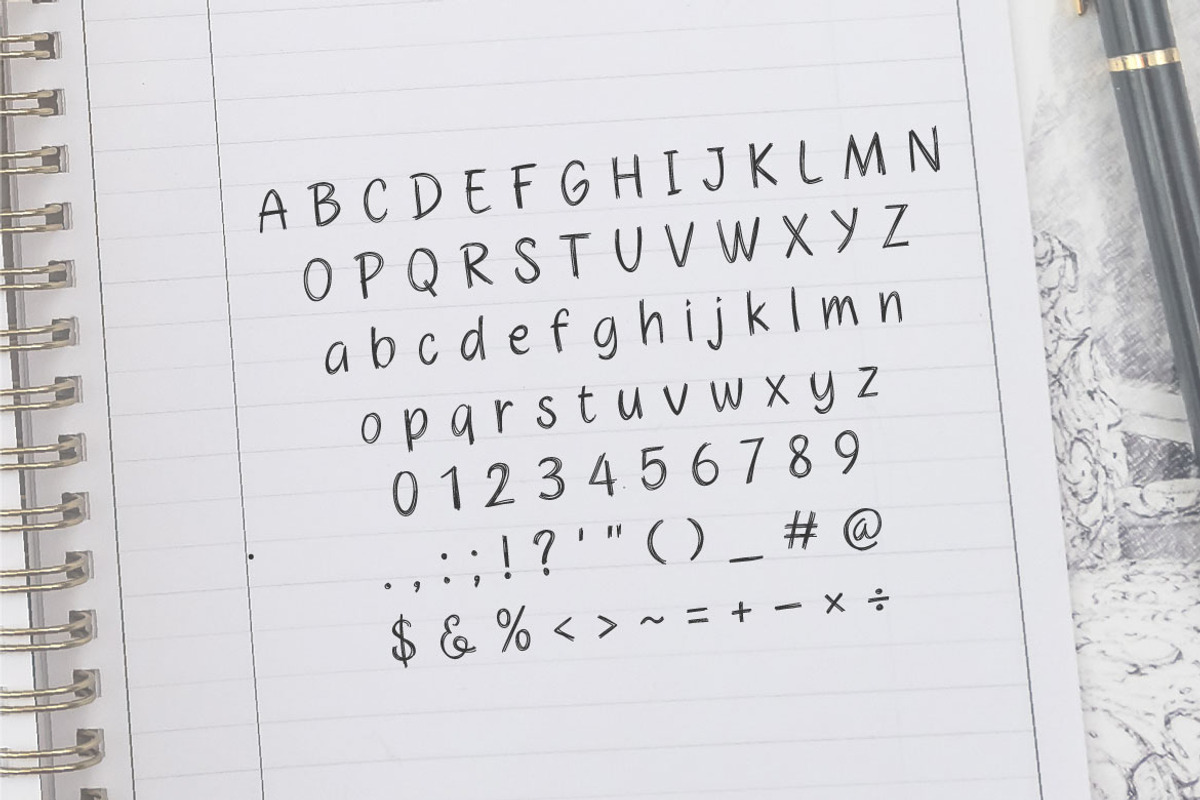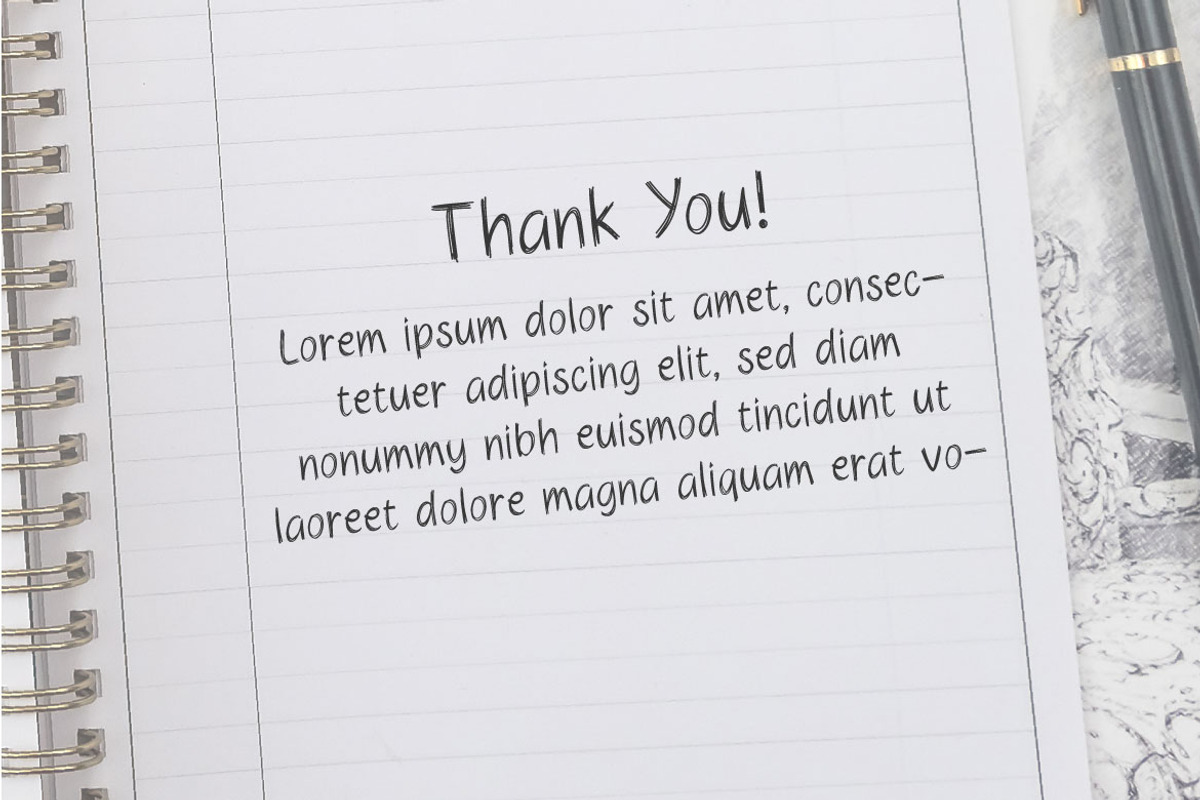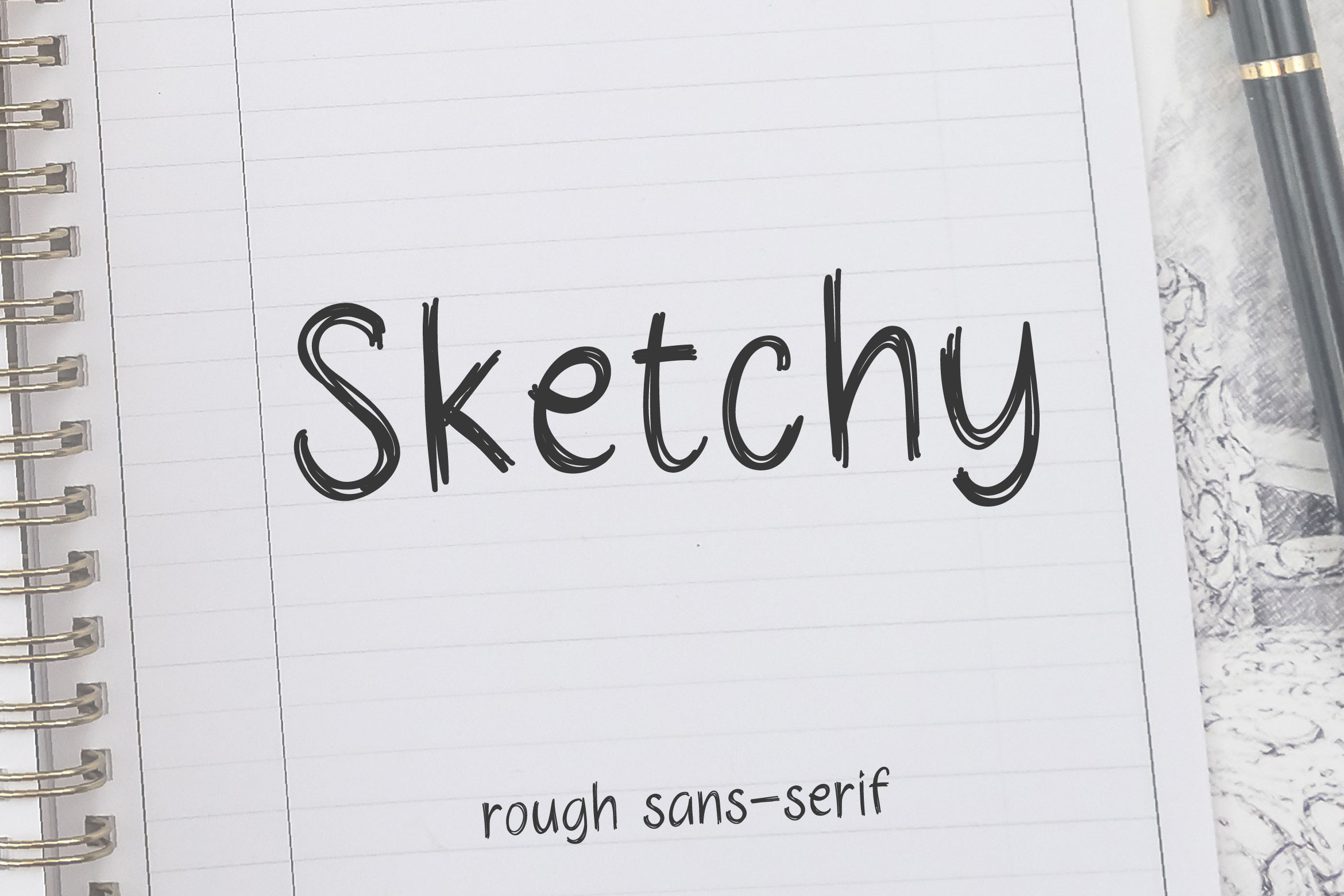
Sketchy - Rough Sans Serif Font
SKETCHY is a font that written in pencil look-a-like. Sketchy has rough and thin look. This font suits perfectly for write a quote, note, book title, logo, music cover, and many more.